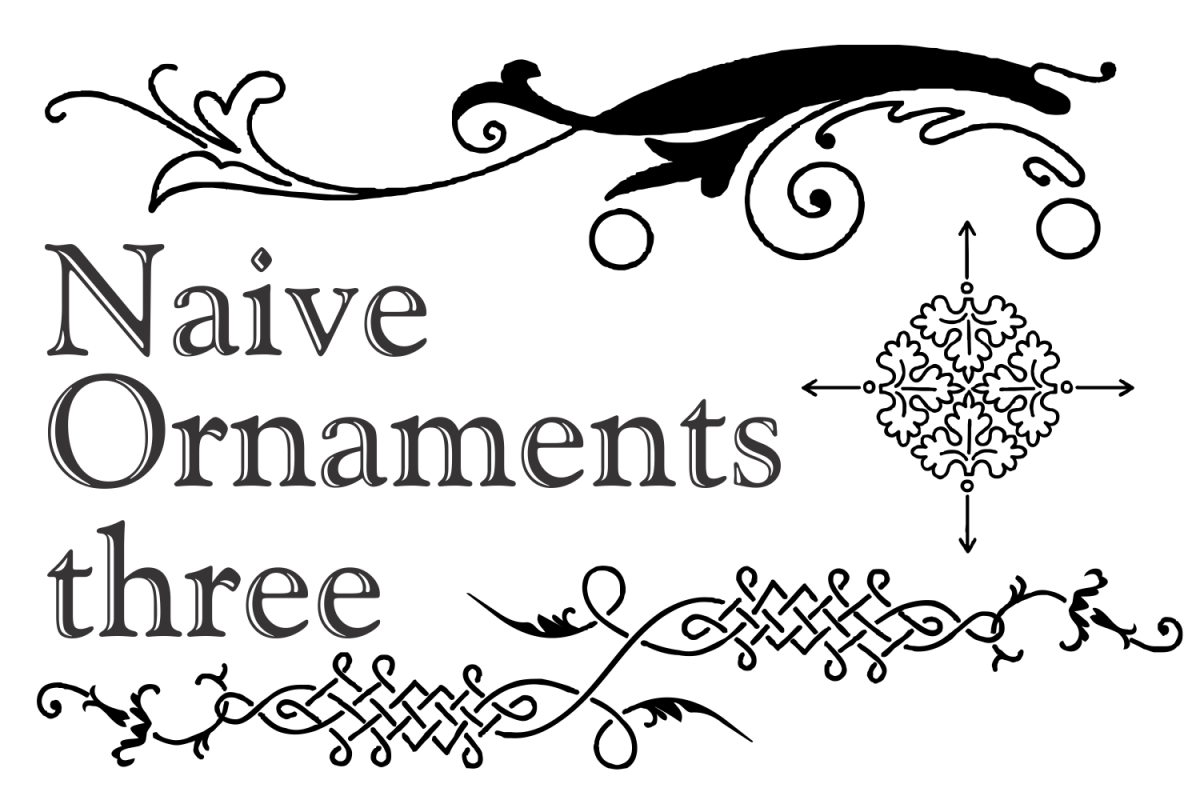
Naive Ornaments Three
Naive Ornaments Three is a colorful collection of ornaments, available in font format. Good to use in arts and crafts works, books of arts, stationery, publishing stuff and many other applications. Another naive masterpiece by Iza W from Intellecta Design. Available too in a super pack with seven fonts of this family here : https://fontbundles.net/intellecta-design/38154-naive-ornaments-family-pack-seven-fonts